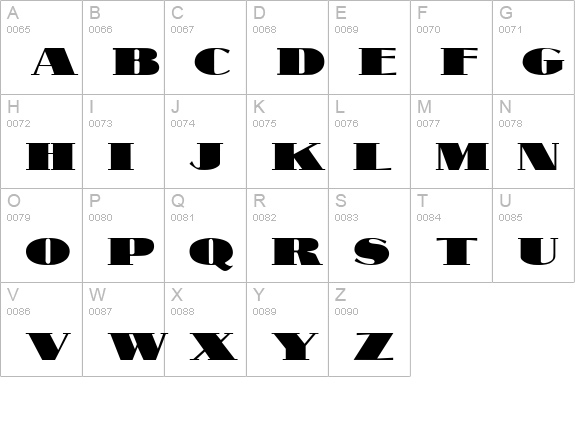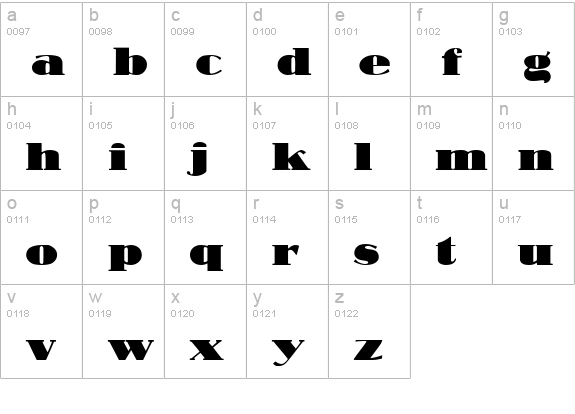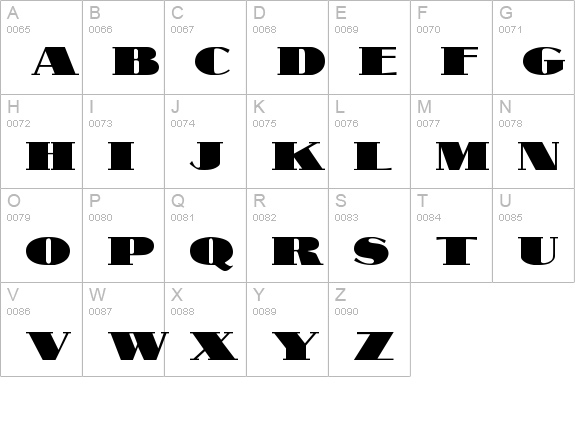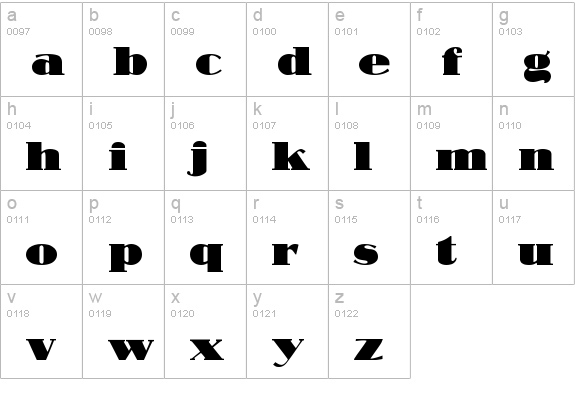
Makar Display SSi Font Details
Makar Display SSi font is a stunning typeface that effortlessly combines elegance with a touch of modernity. Its sleek and stylish design is perfect for a wide range of creative projects, from graphic design to branding and beyond. This font features clean and crisp lines, making it exceptionally legible at any size. Whether used for headlines or body text, Makar Display SSi font adds a distinctive and sophisticated touch to any project. Its versatility allows it to be easily paired with other fonts, enhancing the overall visual appeal. And the best part? Makar Display SSi font is freely available to download at FontsMarket.com. This means that designers and creatives alike can access this remarkable font without any cost. Its availability makes it a valuable asset for any project, regardless of budget or scale. With its timeless appeal and professional quality, Makar Display SSi font is a must-have for designers seeking a font that exudes elegance and sophistication. Whether used for print or digital media, this font is sure to elevate any design project to new heights. So, why wait? Download Makar Display SSi font now from FontsMarket.com and unlock the endless possibilities it offers. Unleash your creativity and let this font become the centerpiece of your next design masterpiece.